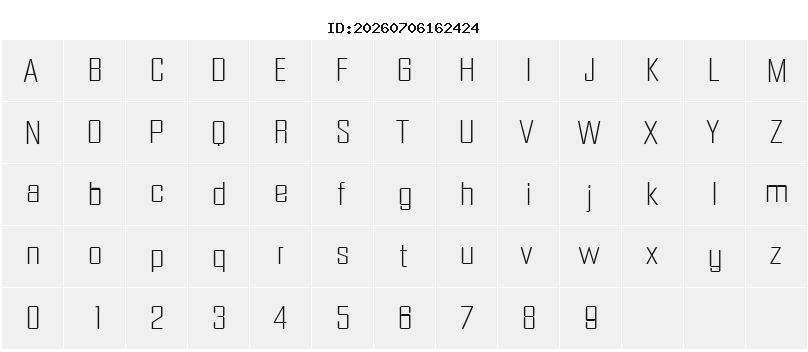
• Font Name: Diamante-Serial-ExtraLight
• Full Font Name: Diamante-Serial-ExtraLight-Regular
About Diamante-Serial-ExtraLight.ttf
Diamante-Serial-ExtraLight.ttf is a modern, elegant sans-serif font designed for ultimate readability and visual harmony. Perfect for branding, headlines, web design, and print materials.